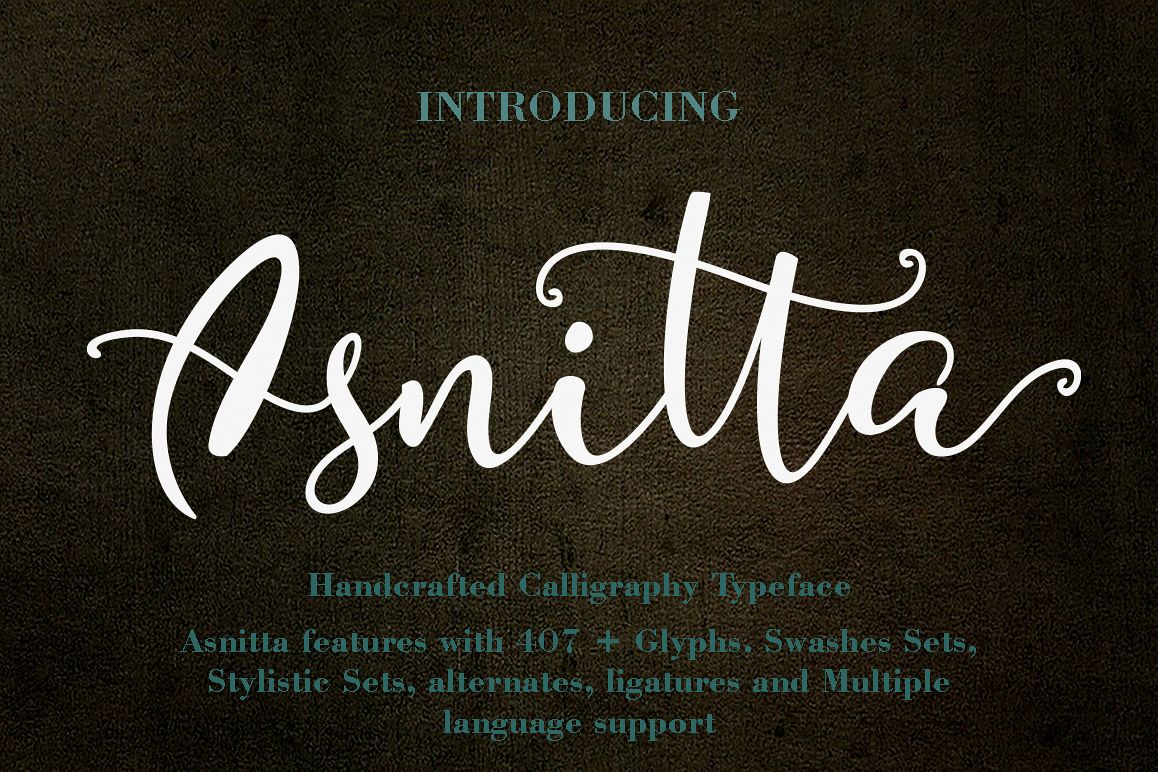
Created By yanindesign
Asnitta
Introducing the lovely new Asnitta Script Font!
Asnitta was built with OpenType features and includes beginning and ending swashes, numbers, punctuation, alternates, ligatures and it also supports other languages :)